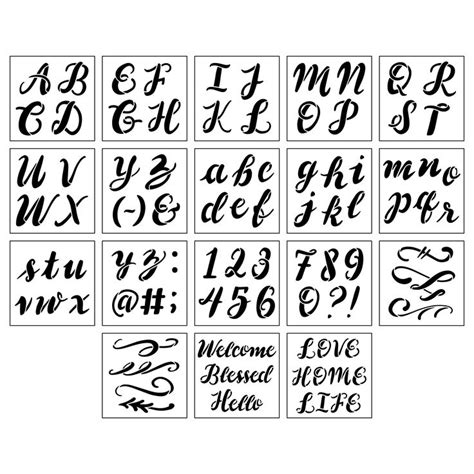
Script Fonts For Stencils: The Best Fonts For Crafting In 2023
Script fonts are an easy way to add a personal touch to any project. Whether you’re creating a scrapbook page, a card, or a wooden sign, script fonts are perfect for stenciling and making something special. With so many different script fonts available, it can be difficult to choose the right one. Here at Crafting in 2023, we’ve done the hard work for you and gathered the best script fonts for stenciling.
Bubblegum Script
Bubblegum Script is a fun, playful font with a unique, bouncy feel. It’s perfect for stenciling on wood, fabric, and other materials. The font offers a variety of fun and interesting shapes that make it perfect for stenciling. The font is also very versatile, and it can be used for a wide range of projects. You can use it to make cards, signs, and more.
Minerva Script
Minerva Script is a great choice for stenciling. It has a classic, elegant look that makes it perfect for creating signs and cards. The font has a variety of shapes and sizes, so you can create a project that is truly unique. It’s also very versatile and can be used for a variety of projects.
Gill Sans
Gill Sans is a great choice for stenciling. It has a classic, timeless look that makes it perfect for creating signs and cards. The font has a variety of shapes and sizes, so you can create a project that is truly unique. It’s also very versatile and can be used for a wide range of projects.
Lobster Two
Lobster Two is a great choice for stenciling. It has a modern, stylish look that makes it perfect for creating signs and cards. The font has a variety of shapes and sizes, so you can create a project that is truly unique. It’s also very versatile and can be used for a variety of projects.
Brush Script
Brush Script is a great choice for stenciling. It has a unique, hand-painted look that makes it perfect for creating signs and cards. The font has a variety of shapes and sizes, so you can create a project that is truly unique. It’s also very versatile and can be used for a variety of projects.
Script fonts are a great way to add a personal touch to any project. Whether you’re creating a scrapbook page, a card, or a wooden sign, script fonts are perfect for stenciling and making something special. With so many different script fonts available, it can be difficult to choose the right one. We hope this article has helped you find the perfect script font for your project.